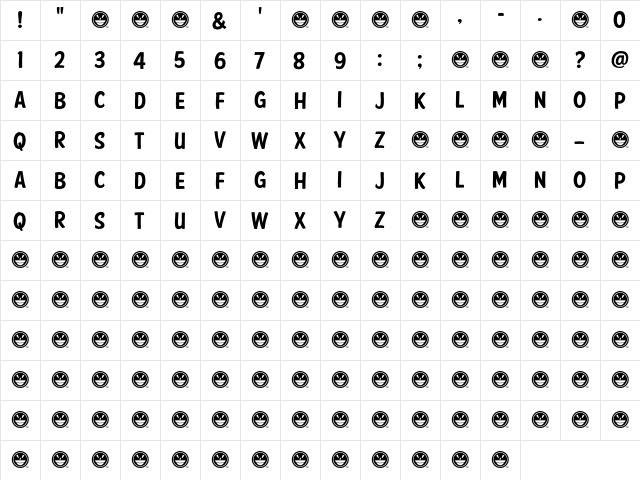
American Purpose Casual 01 Regular
Design Context for American Purpose Casual 01 Typeface
American Purpose Casual 01 offers clean, dependable letterforms without strong stylistic allegiance, making it a practical choice for designers who need flexibility.
Pro Tip: Use American Purpose Casual 01 in both headline and body roles to test its range before committing to a single application.